Aperture
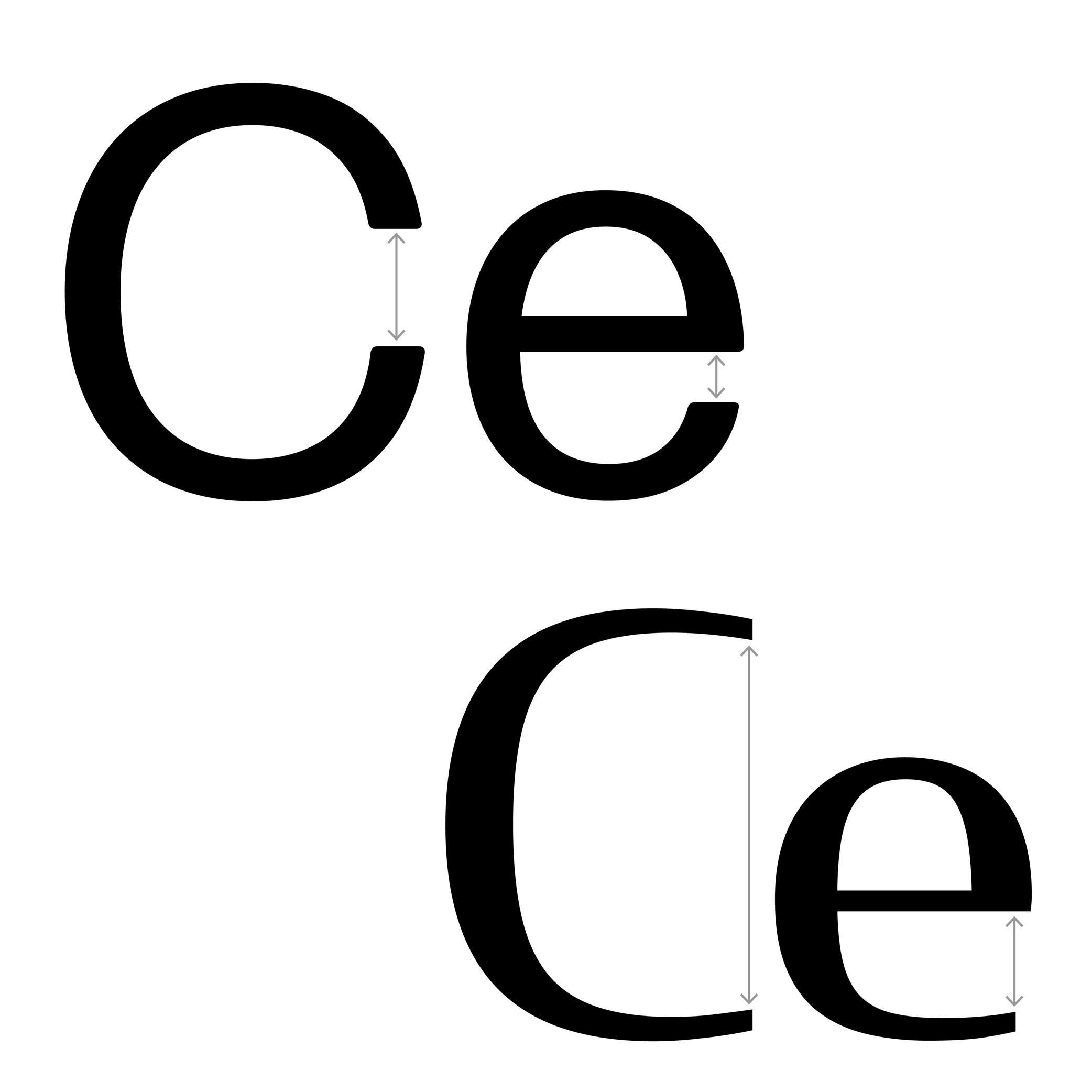
The aperture is the frontier between the counter and the surrounding white space of opened letters (such as a, e or c).
Contemporary typefaces that are meant for long text reading are often designed with a wider aperture (sometimes even without a terminal at the top of a and c) as solutions to increase their legibility at smaller size.